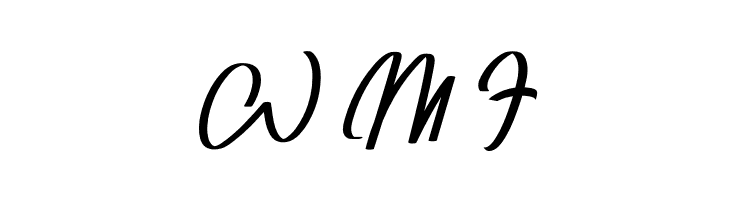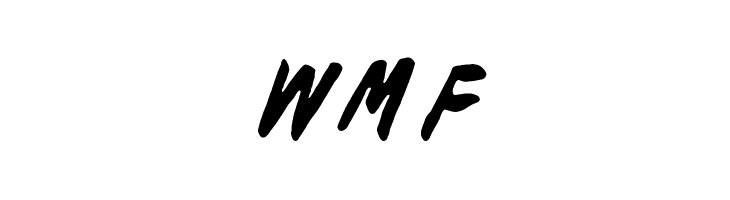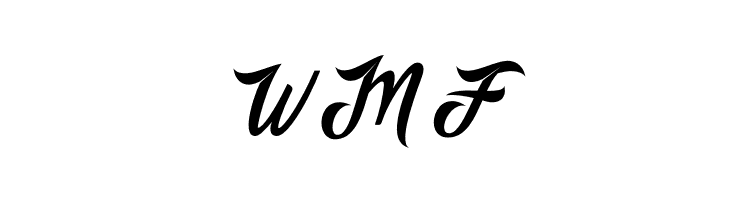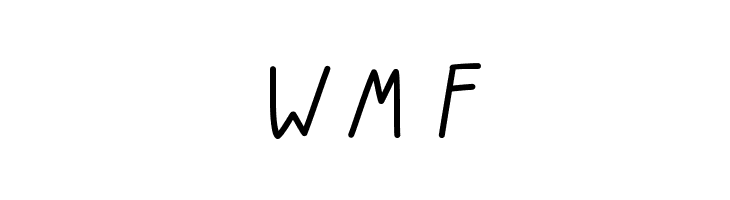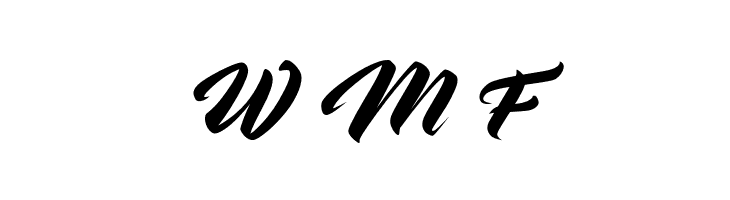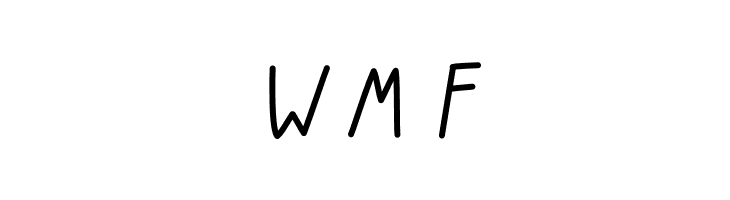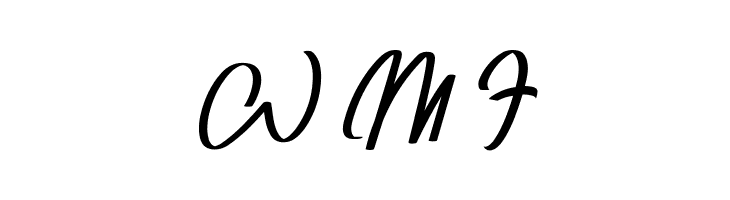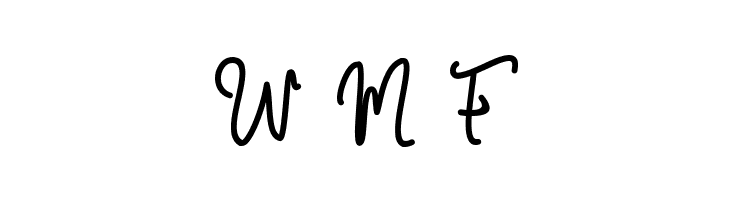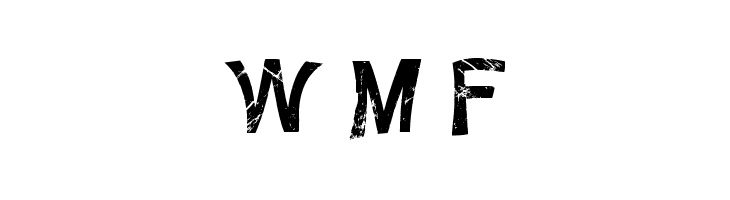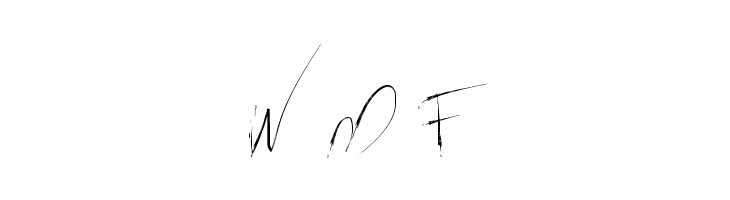
• Advanced Sans Serif 7
A modern, geometric sans-serif font with a clean and balanced design.
• Advanced Sans Serif 7 Bold
A bold, modern sans-serif font with clean, geometric lines.
• Advantage Italic
A bold, italicized font with a futuristic and dynamic design.
• Advantage Regular
A bold, geometric font with a futuristic and tech-inspired design.
• Advantages
An elegant script font with flowing, cursive style and intricate loops.
• Advectionz FREE
A bold, flowing script font with elegant, interconnected strokes.
• AdvectionzFREE
A bold, dynamic script font with flowing, cursive letterforms and high contrast.
• Advent_Psychosis
A bold, distressed font with a grunge, textured style.
• Adventure
A bold, angular font with a dynamic, italicized style.
• Adventure
A dynamic and elegant cursive script font with bold, flowing letterforms.
• ADVENTURE AWAIT
A playful, casual handwritten font with smooth, flowing lines.
• ADVENTURE AWAIT
A playful, casual handwritten font with smooth, flowing lines and moderate contrast.
• Adventure Dreamer
A playful, cursive font with interconnected letters and a whimsical style.
• adventure Eiffel
• Adventure Hollow
A bold, hollow font with a dynamic and adventurous style.
• Adventure Invisible
A bold, cursive font with a dynamic and flowing style.
• Adventure Magazine
A bold, brush-style font with dynamic, hand-drawn strokes.
• Adventure Strike FREE
A bold, geometric font with angular, futuristic styling.
• Adventure Subtitles
A bold, modern font with geometric and futuristic design elements.
• Adventurer Regular
A bold, three-dimensional font with a dynamic and adventurous style.
• AdventureScript
A dynamic and flowing script font with elegant, cursive letterforms.